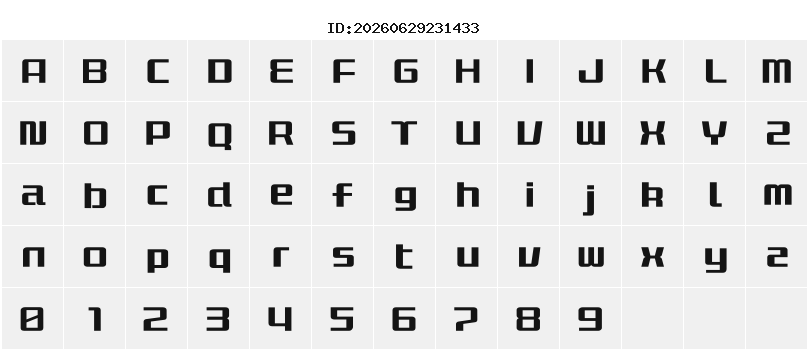
Aa国营一厂 Preview
• Font Name: Aa国营一厂
• Font Style: 常规
• Font ID: 1.000;Aa;AaGuoYingYiChang;2024
• Full Font Name: Aa国营一厂
• PostScript Name: AaGuoYingYiChang
• Character Count: 10023
• Designer: Aa
• Manufacturer: 翰美互通(厦门)科技有限公司
• Description: AaGuoYingYiChang is a fantastic font with excellent features designed for user interfaces and electronic communications.
About Aa国营一厂.ttf
Aa国营一厂.ttf is a modern, elegant sans-serif font designed for ultimate readability and visual harmony. Perfect for branding, headlines, web design, and print materials.